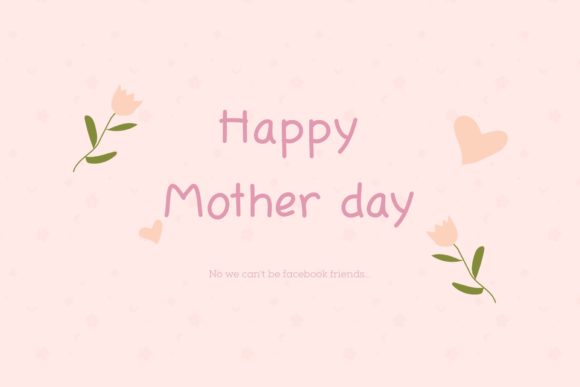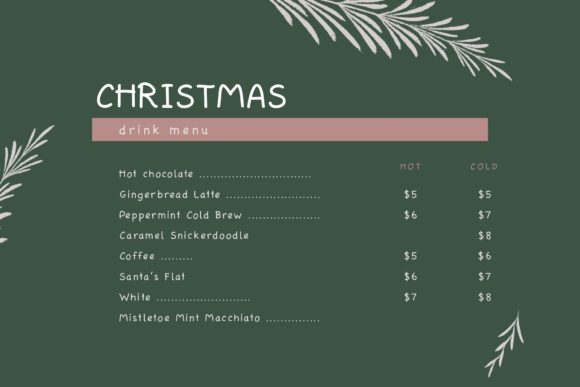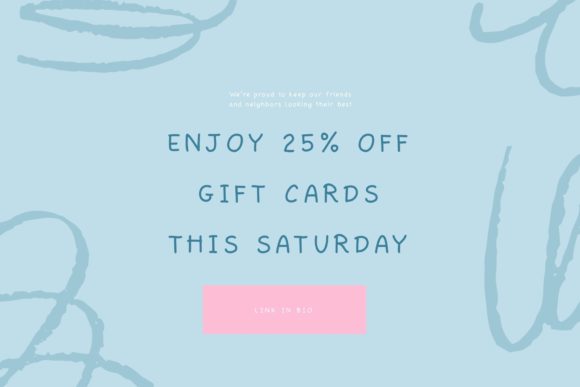
Introducing Everleigh Font: The Ultimate Clean and Modern Handwritten Font
Are you a designer, crafter, or DIY enthusiast looking for a versatile and stylish font to elevate your projects? Look no further than Everleigh Font, a clean and modern handwritten font that is sure to impress. With its beautifully rounded characters and stylish flair, Everleigh Font is the perfect addition to any design, craft, or creative project.
What is Everleigh Font?
Everleigh Font is a carefully crafted handwritten font that exudes a sense of modernity and sophistication. Its clean lines, rounded characters, and stylish flair make it an ideal choice for a wide range of projects, from Cricut crafts to professional branding and design. Whether you’re creating logos, greeting cards, posters, or social media graphics, Everleigh Font is sure to add a touch of elegance and refinement.
Uses for Everleigh Font
The versatility of Everleigh Font is one of its most appealing features. This font can be used for a wide range of projects, including:
- Cricut Projects: Add a personal touch to your Cricut crafts, such as vinyl decals, iron-on designs, and paper crafts.
- Design and Logos: Create stunning logos, branding materials, and business cards that showcase your professionalism and style.
- Wedding Invitations: Make your special day even more memorable with beautifully designed wedding invitations featuring Everleigh Font.
- Stickers and Labels: Add a touch of personality to your stickers, pantry labels, and other adhesive designs.
- Greeting Cards and Posters: Create eye-catching greeting cards, posters, and social media graphics that showcase your creativity and style.
- Planner Prints: Add a touch of elegance to your planner prints, journals, and organizers.
Why Choose Everleigh Font?
So why choose Everleigh Font over other fonts? Here are just a few reasons:
- Unique and Versatile: Everleigh Font is a one-of-a-kind font that can be used for a wide range of projects, from personal crafts to professional branding.
- Elegant and Refined: The font’s clean lines, rounded characters, and stylish flair give it an air of sophistication and elegance.
- Easy to Read: Everleigh Font is highly legible, making it perfect for body text, headings, and titles.
- Scalable: The font is designed to be scalable, ensuring that it looks great at any size.
Tips for Using Everleigh Font
To get the most out of Everleigh Font, here are a few tips:
- Experiment with Sizes and Colors: Try out different font sizes and colors to add visual interest to your designs.
- Pair with Other Fonts: Combine Everleigh Font with other fonts to create unique and eye-catching typography.
- Use for Headings and Titles: Take advantage of the font’s elegant and refined style by using it for headings and titles.
| Font Name | Everleigh Font |
| Author | mangpor2004 |
Everleigh Font is a versatile and stylish clean and modern handwritten font that is perfect for designers, crafters, and DIY enthusiasts. With its beautifully rounded characters and stylish flair, this font is sure to elevate your projects and add a touch of elegance and refinement. Whether you’re creating Cricut crafts, logos, wedding invitations, or social media graphics, Everleigh Font is the perfect choice.